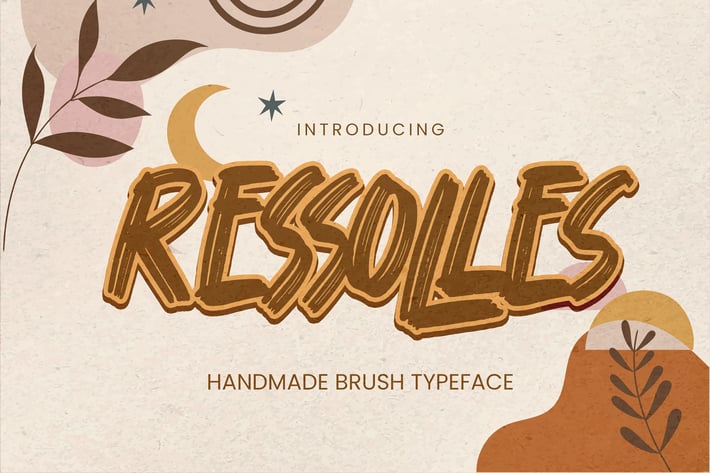
Ressolles - Handmade Brush Typeface
Ressolles - Handmade Brush Typeface with a natural style and dramatic movement. Crafted manually with love and passion, This font is great for your next creative project such as logos, printed quotes, invitations, cards, product packaging, headers, Logotype, Letterhead, Poster, Label, and etc.
This handmade font will make your design has a beautiful natural touch for each details. It is perfect for any design project as Invitation, book cover, craft or any design purposes. photos, photography overlays, signs, window art, scrapbooking, tags and so much more!